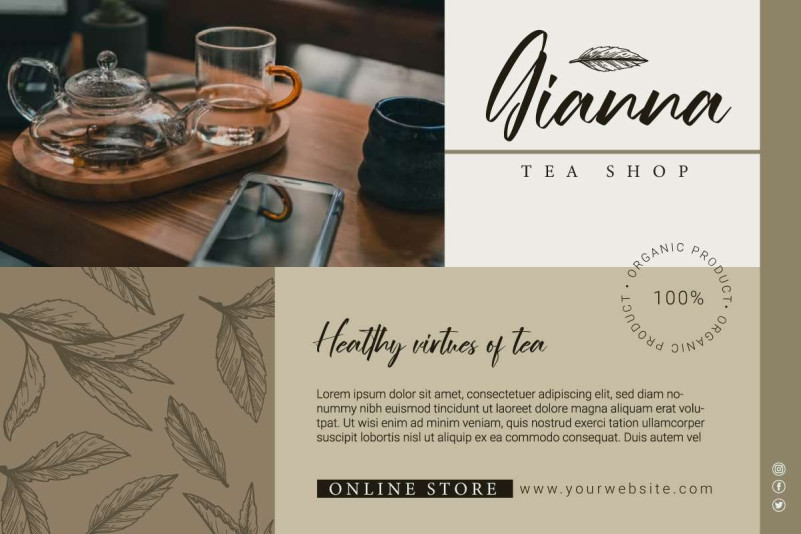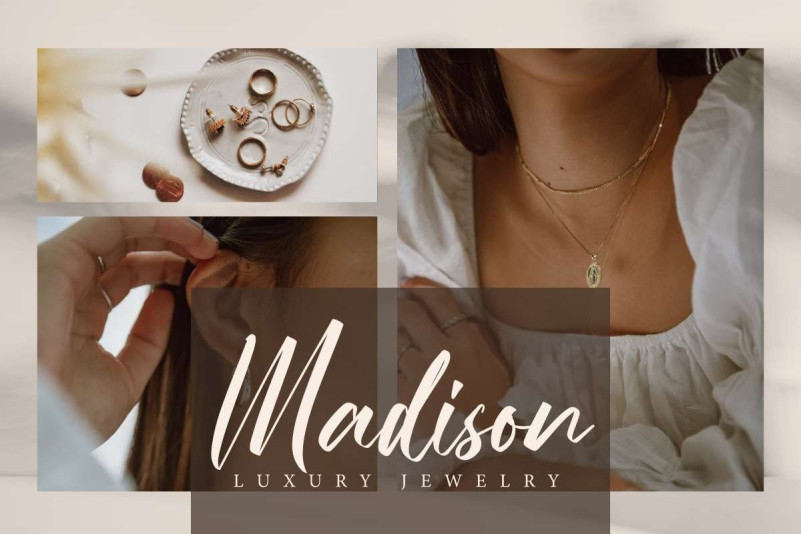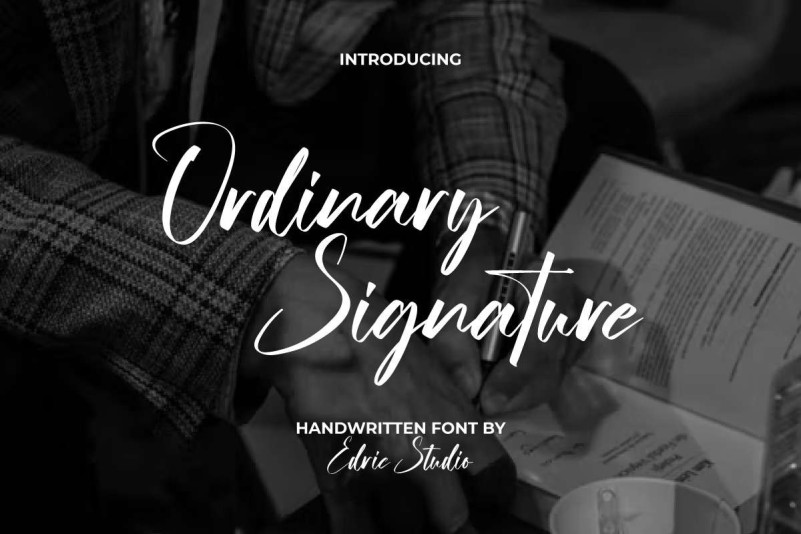
Ordinary Signature Font
Ordinary Signature Font is a calligraphic handwriting signature font. It brings a classy look that will bring out extraordinary beauty and suitable for industries, such as author, boutique, café, clinic, clothing brand, furniture, herbal products, hotel, jewelry, photography, printing, publishing, and much more.
Ordinary Signature Font comes with a full set of Uppercase and Lowercase Basic Characters, Number, a large range of Punctuation and Symbol, and also some Ligature characters. It has a stunning characters set, perfectly managed with well spaced and kerning. Ordinary Signature Font will take your project to another level and is perfect for catalog, label, packaging design, screen print, stationery, title, website, etc.